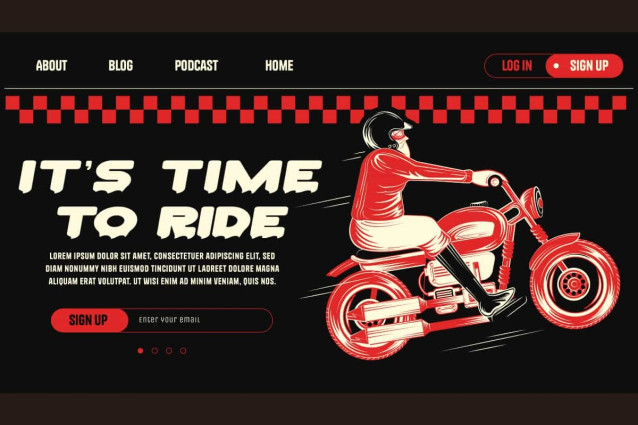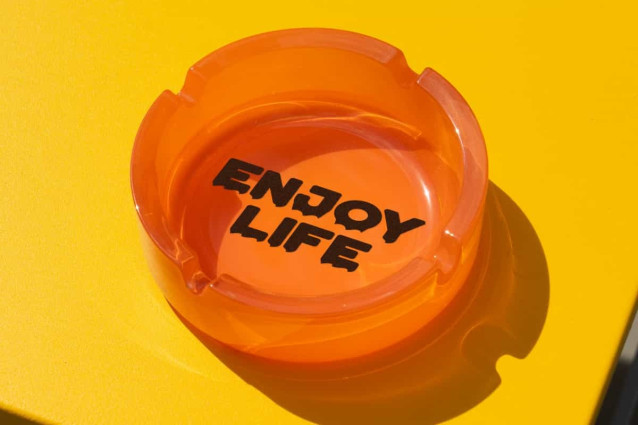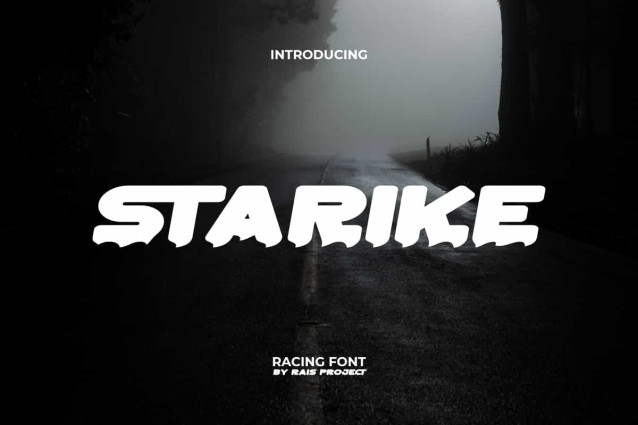
Starike Font
Starike Font is a fun galactic planet techno but sporty font with wave shapes at the bottom of the letters. This font is a combination of letters and wave shapes, making it look unique. It will look good on poster, custom design, stationery, label, signage, invitation, poster, quotes, web, and more!
Starike Font includes a full set of ALL CAPS for Uppercase and Lowercase Letters, Numerals, and large range of Punctuation. This decorative font will be sought by many people and will be suitable for various industries, such as game, sports, movie, fashion, cafe, event or festival, printing, publishing, etc.